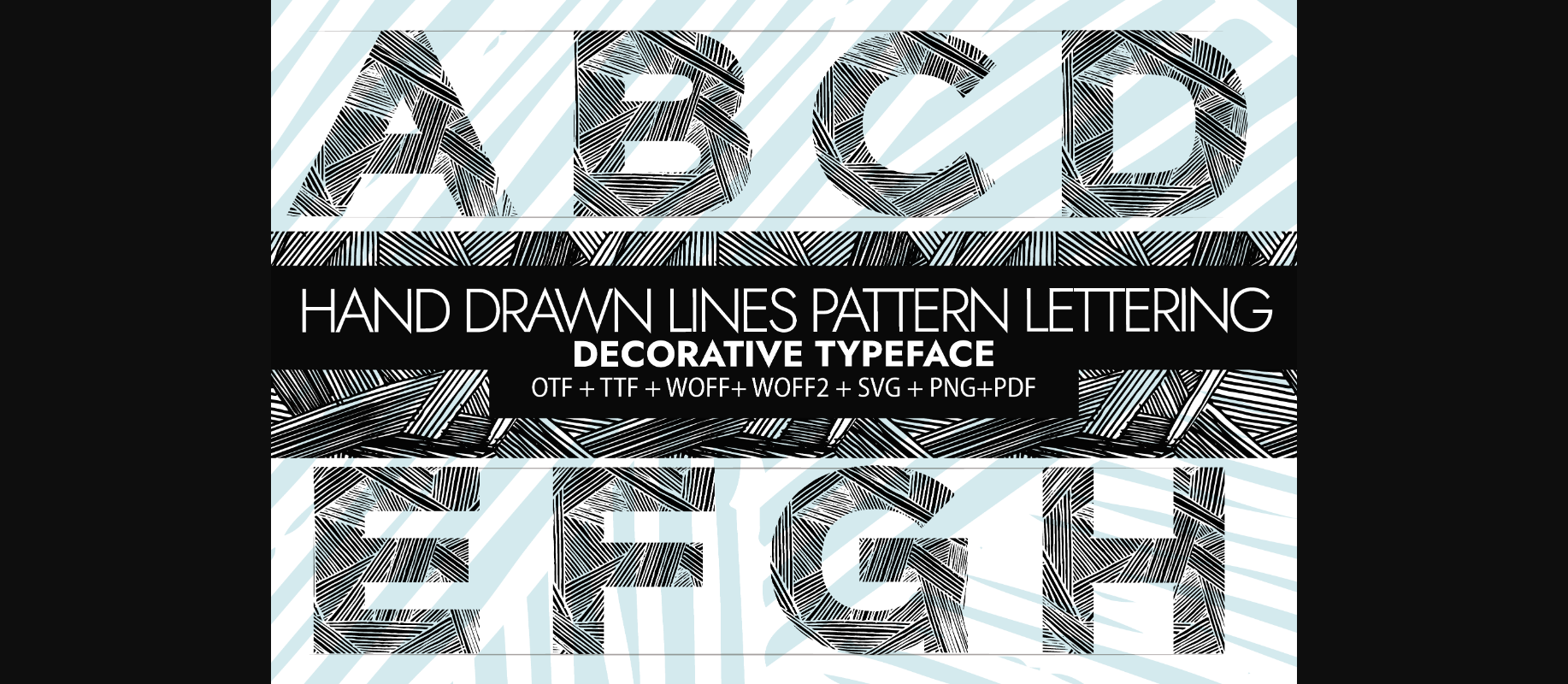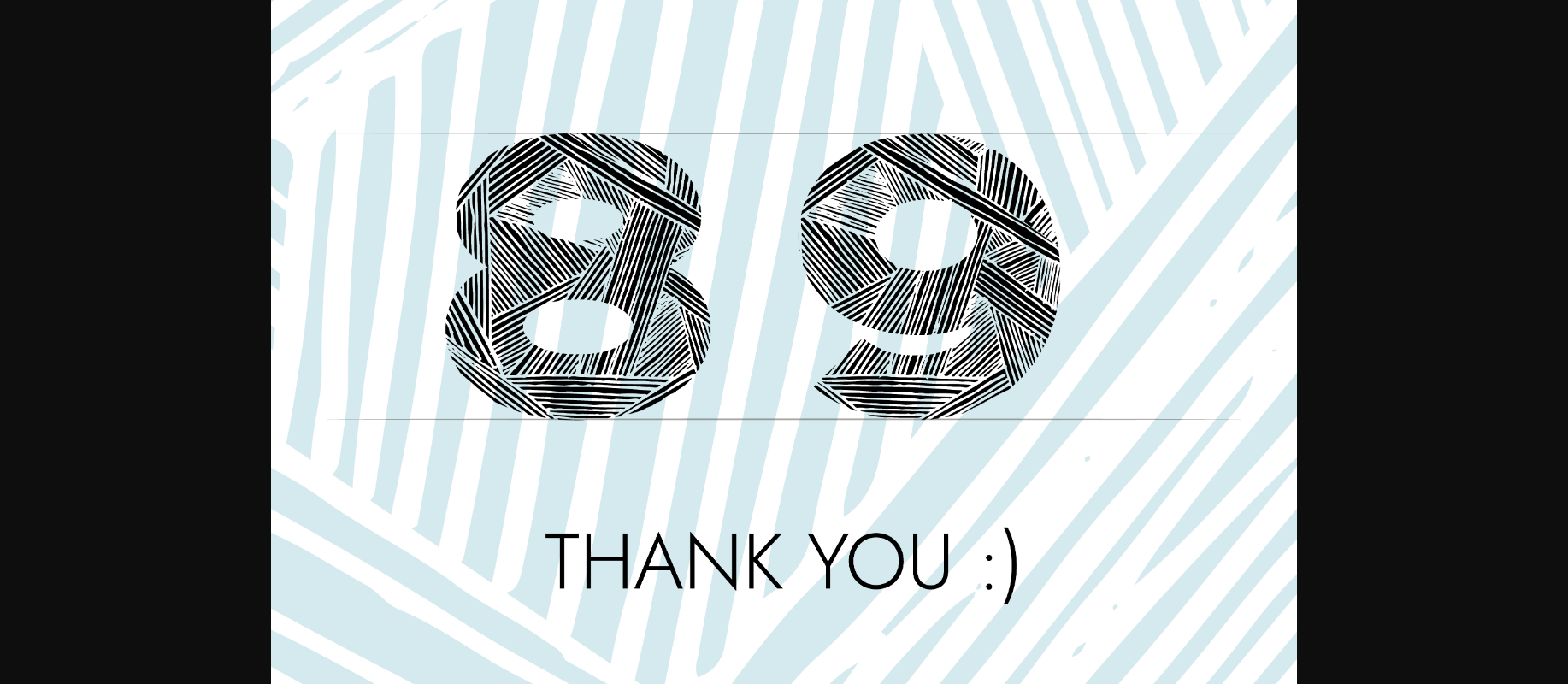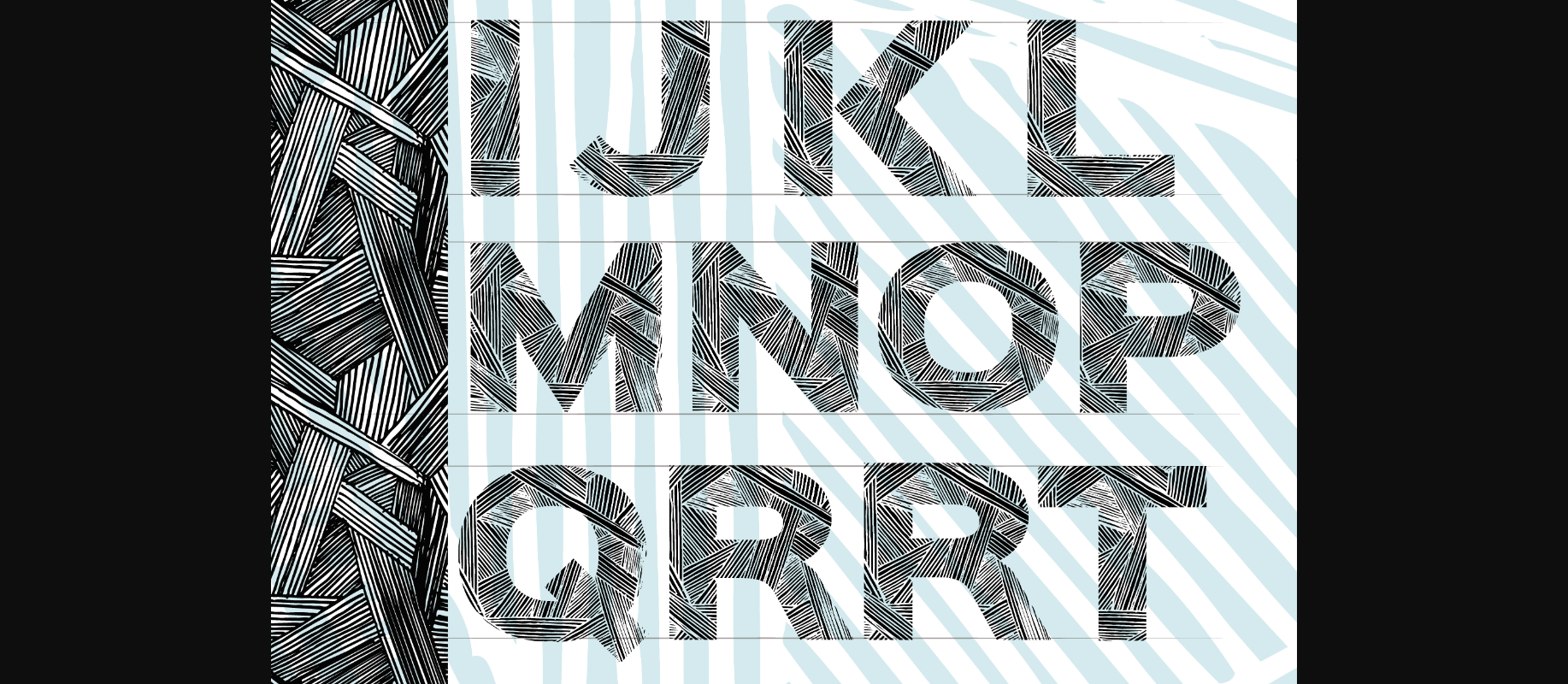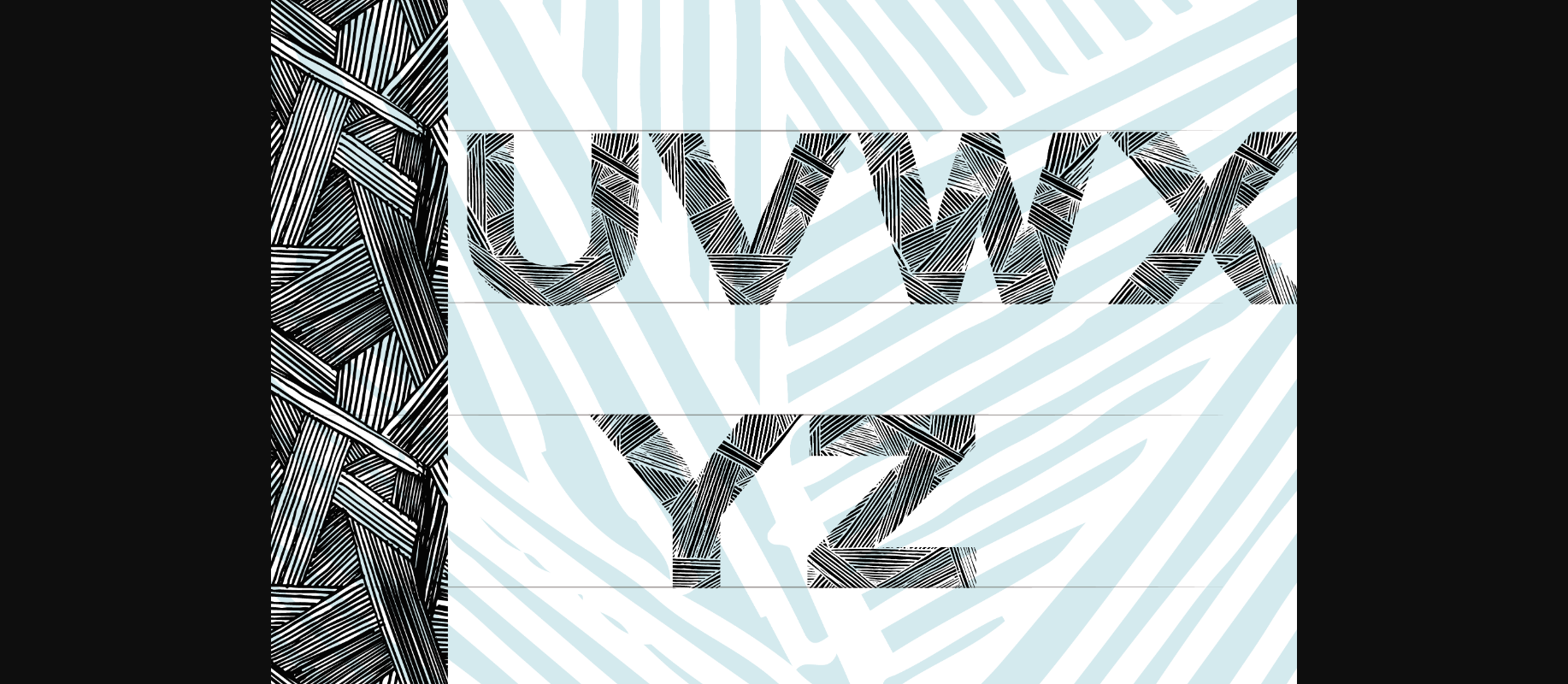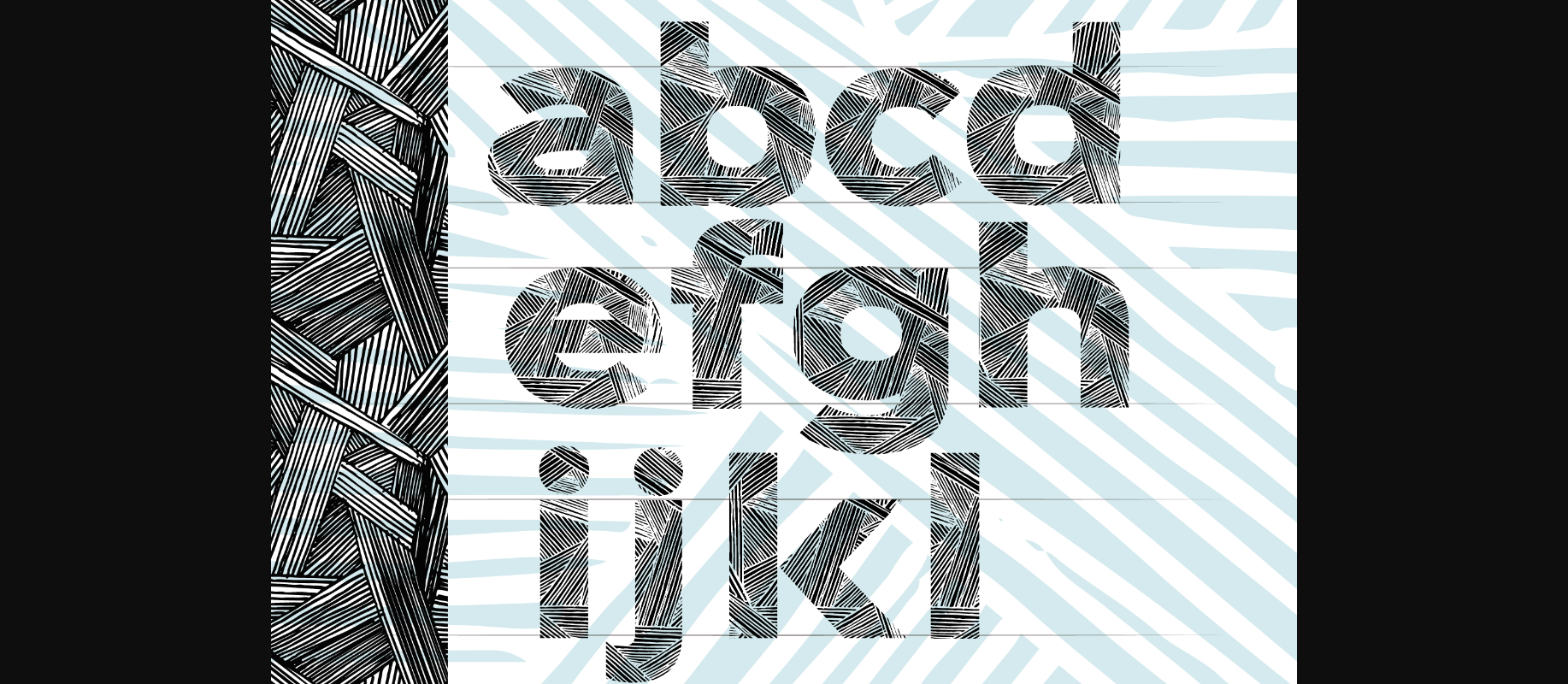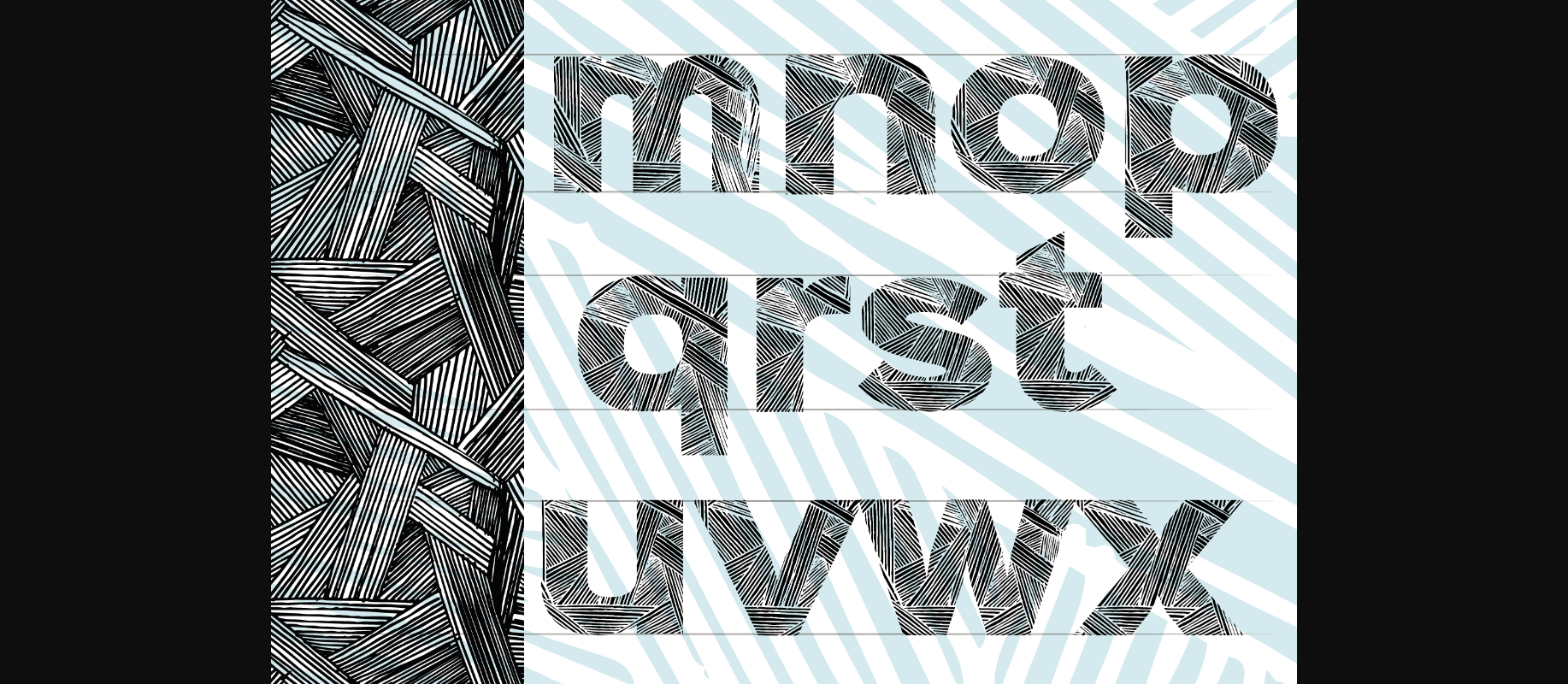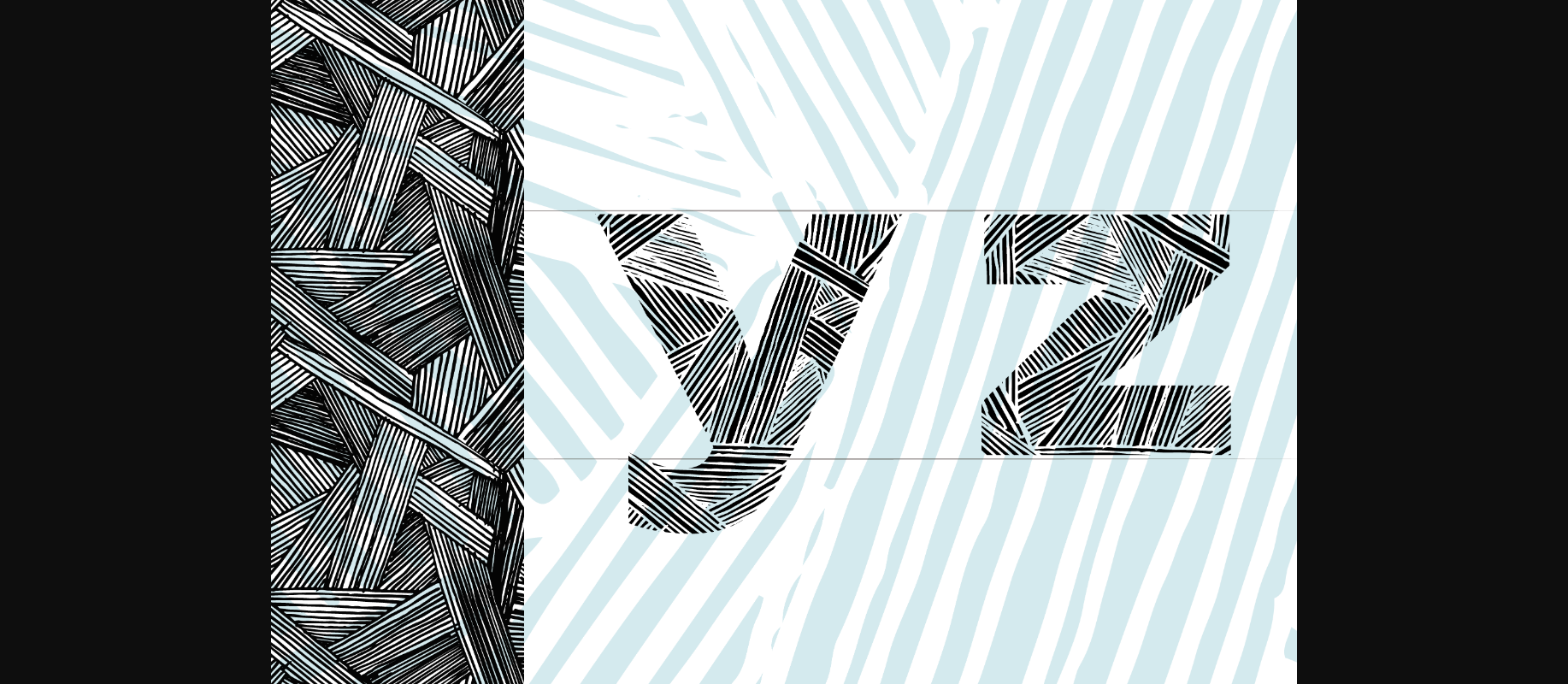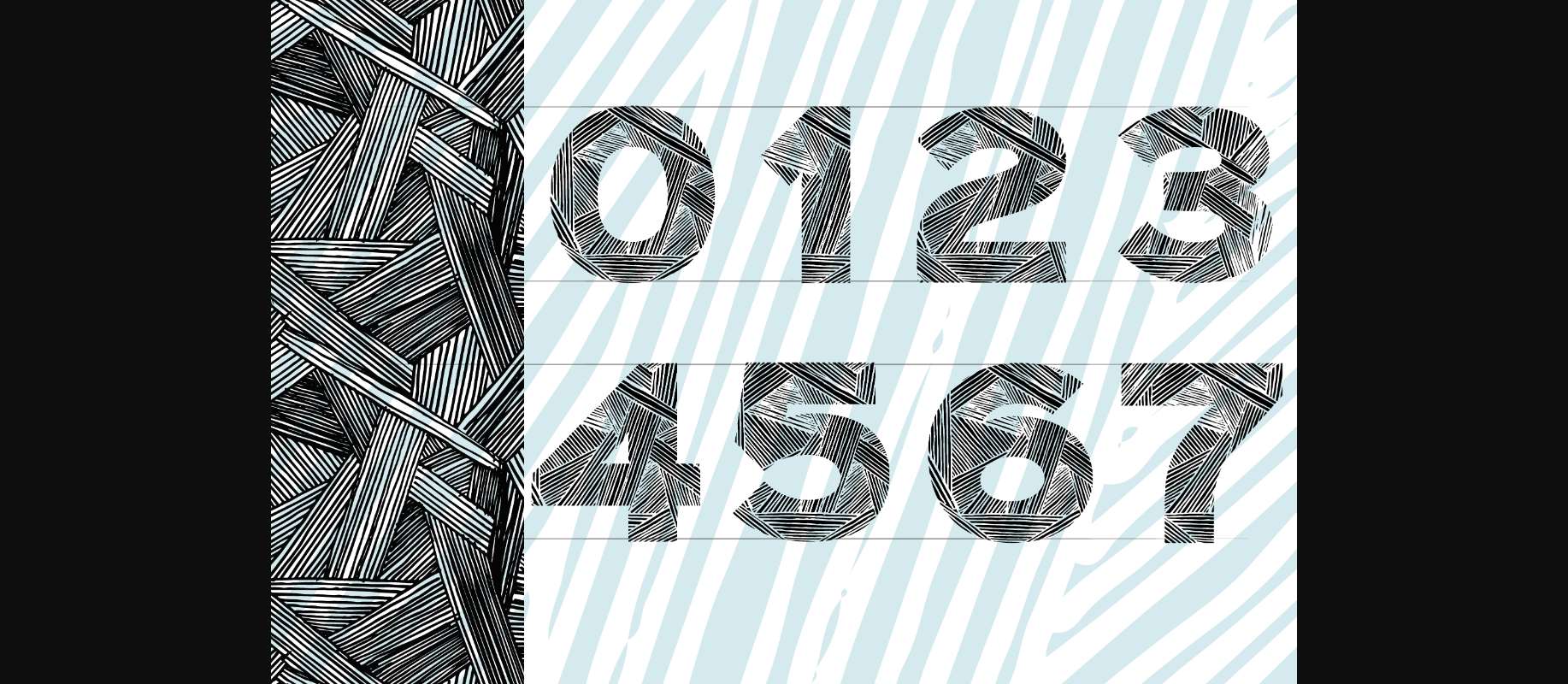
Hand Drawn Ink Lines Font
About Hand Drawn Ink Lines Font
Hand Drawn Ink Lines is a uniquely designed and highly detailed decorative font. It works well on posters, headlines and titles. The only limit is your imagination.